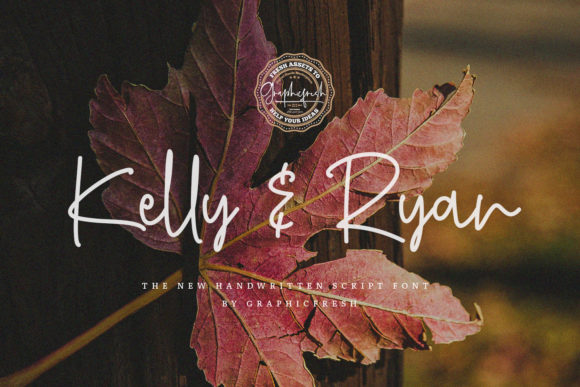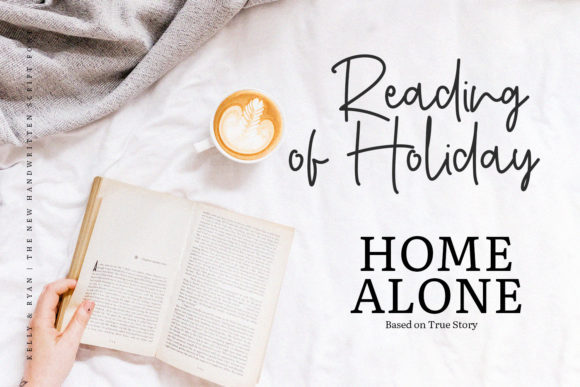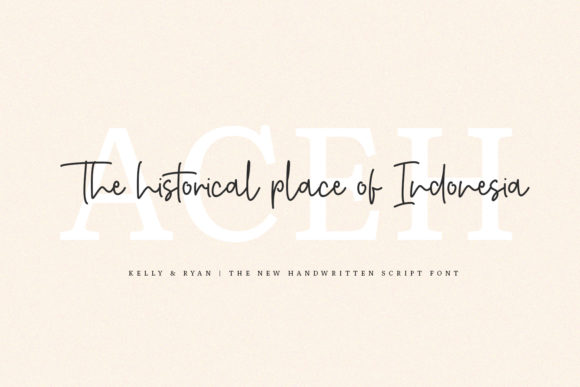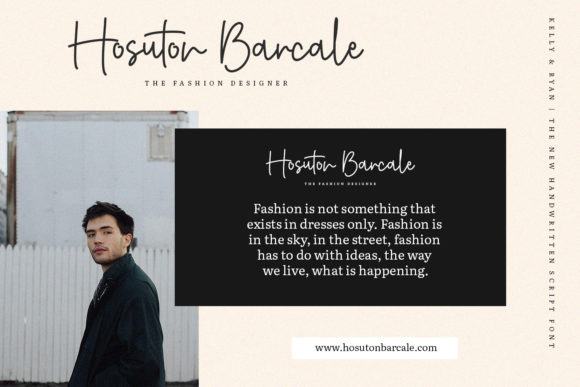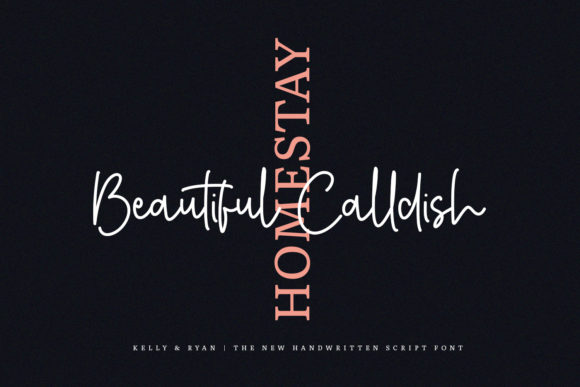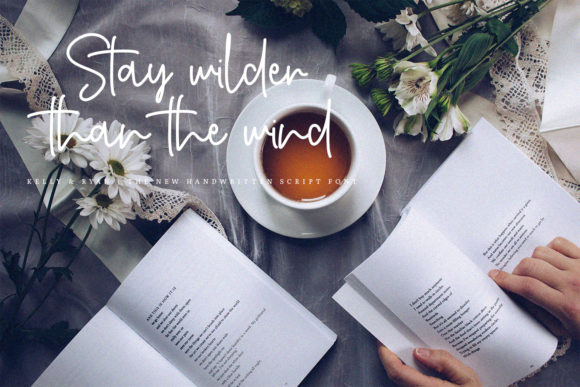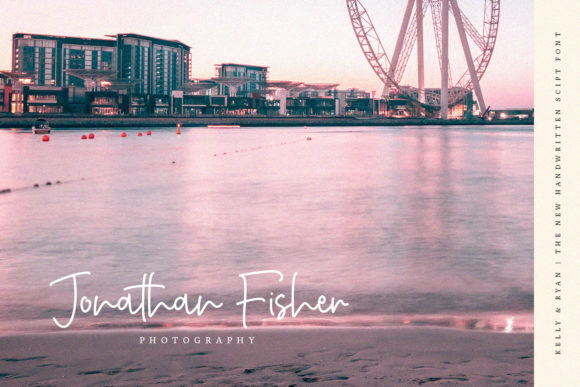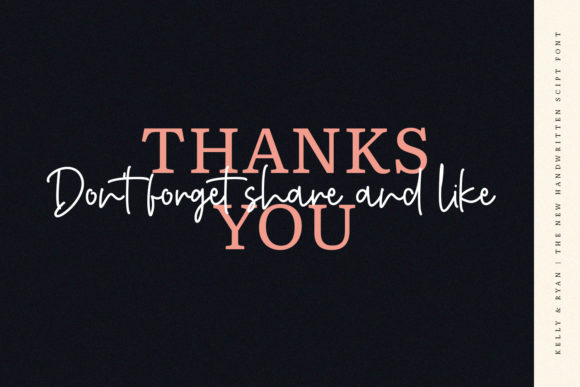
Kelly & Ryan Font
About Kelly & Ryan Font
Kelly & Ryan is a romantic and delicate handwritten font with an authentic feel. Use it to add a personal touch to any design idea!